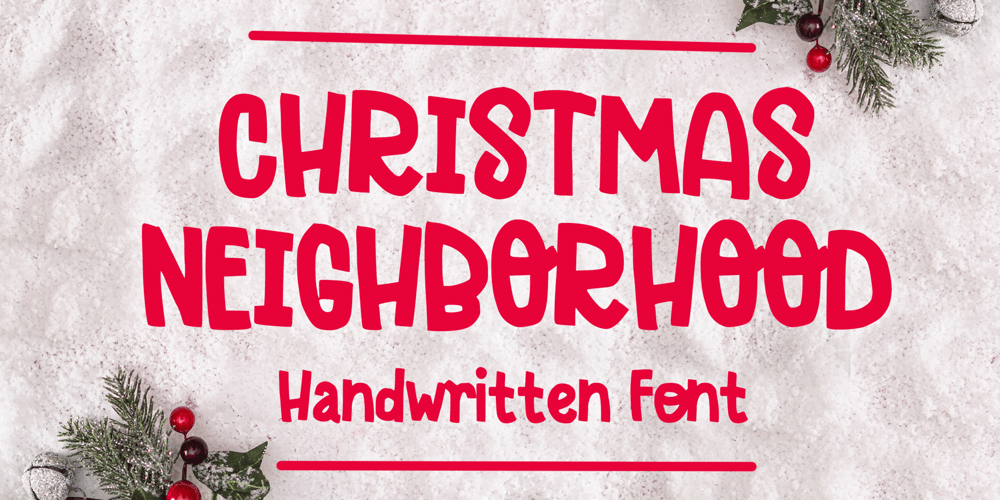
Christmas Neighborhood Font Family was designed by Gabriel Valentinus and published by Mvmet. Christmas Neighborhood contains 1 styles and family package options. Christmas Neighborhood is your perfect stylish Christmas font. You can use it for anything ranging from t-shirts, kids’ book designs, and greeting cards to stickers and posters, or anything that needs a casual touch. Fall in love with its incredibly versatile style, and use it to create lovely designs!